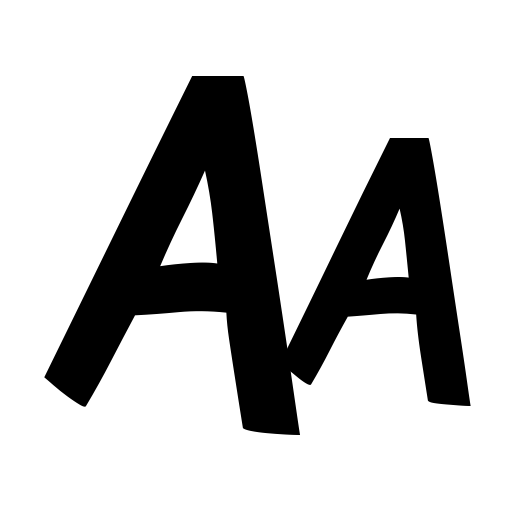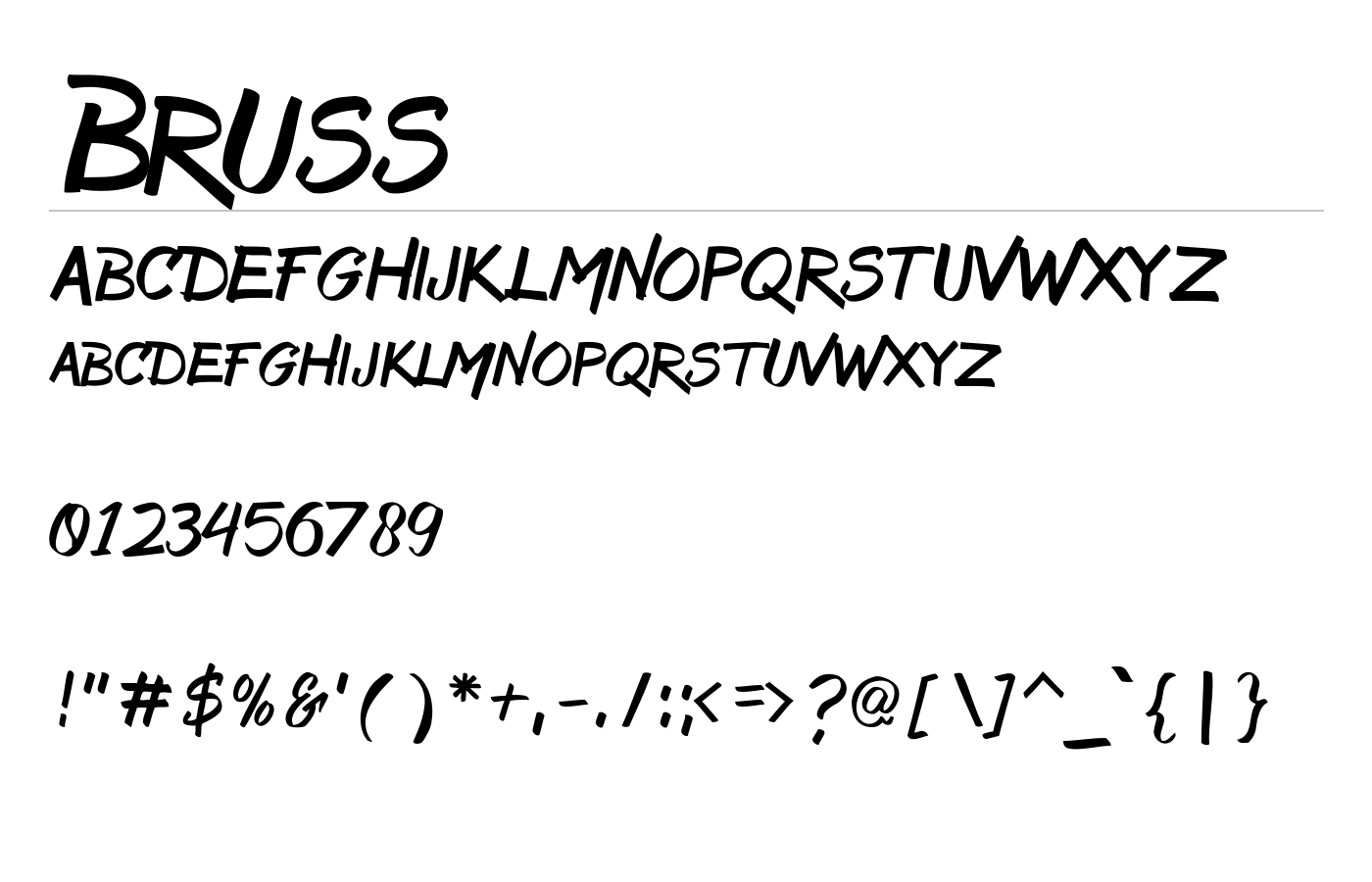
Bruss is a playful and energetic sans serif font with a hand-drawn feel, characterized by its irregular, slightly slanted letterforms and casual stroke style. Its narrow width and medium weight give it a dynamic and informal personality, making it ideal for creative branding, posters, and informal editorial use where a friendly and approachable tone is desired. This font works well in display settings, adding a lively and personal touch to headlines and logos.
Bruss Font
| Designer | akufadhl |